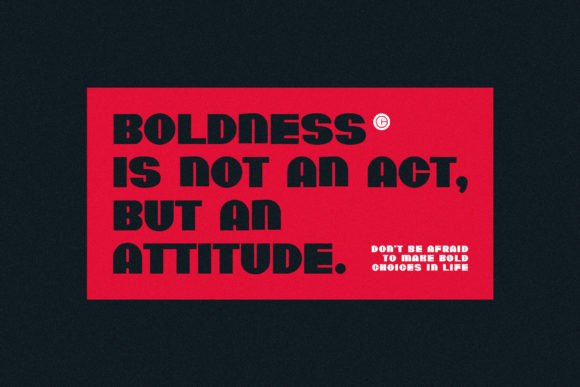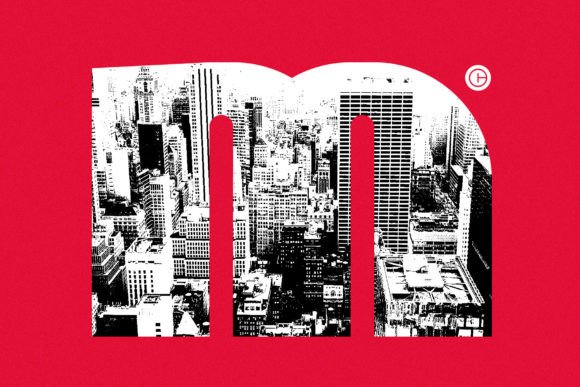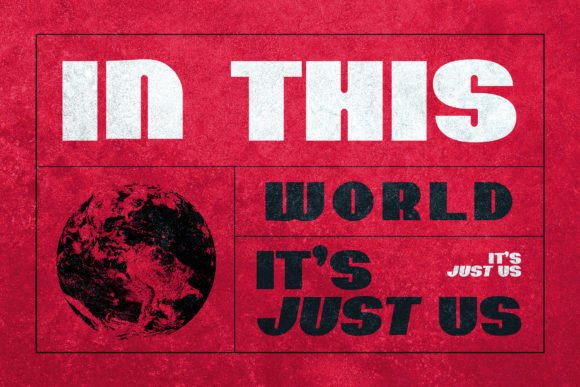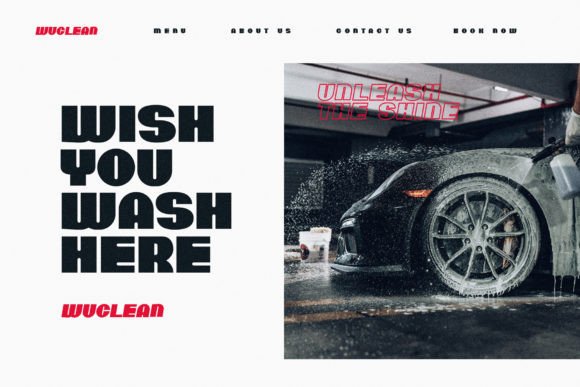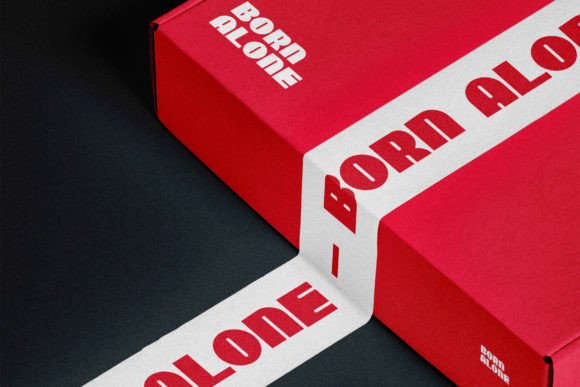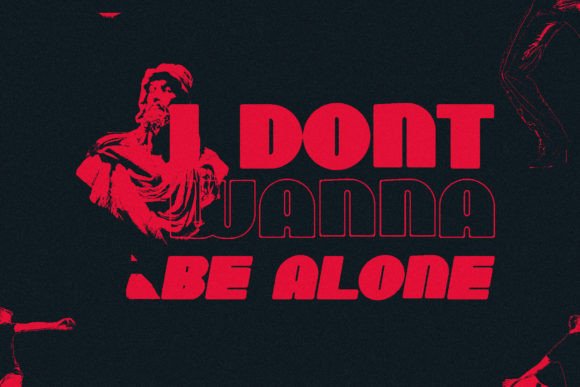
The Birth of a New Era in Typography
It’s that moment when a blank canvas stares back at you, waiting for your creative spark to ignite. The blank page, the empty screen, the waiting silence – it’s where the magic happens. For designers, this is the moment when the possibilities are endless, and the only limit is their imagination. But what happens when that spark is fueled by a unique blend of inspiration, precision, and elegance? Enter the Kirom Font, a symphony of shapes and proportions that will revolutionize the way you think about typography.
The Kirom Font is more than just a typeface – it’s a versatile tool designed to elevate any graphic design project. From brochures to video titles, and from logos to magazine layouts, this font has got you covered. With its subtle contours and precise proportions, it’s the perfect companion for designers who crave minimalism and elegance without compromising on style.
Kirom Font Key Features
- Unique Characteristics: Kirom Font features a unique, modern design with intricate details and subtle texture, making it suitable for a wide range of applications.
Designer Review: Kirom Font
As a designer, I was excited to dive into Kirom Font and see what it had to offer. ✨ One of the things that immediately stood out to me was its modern and sleek aesthetic, making it perfect for contemporary designs. The font’s clean lines and simple shapes give it a timeless feel that will complement a wide range of projects.
Another aspect I appreciated about Kirom Font was its versatility. ✨ It comes in a variety of weights and styles, allowing designers to choose the perfect fit for their needs. Whether you’re looking for a bold statement font or a subtle, understated option, Kirom Font has got you covered.
However, there are a few limitations to consider: ⚠️ For one, the font may not be as suitable for complex, multi-line texts, as some of the letters can appear quite similar. Additionally, the font’s design may not be as distinctive or memorable as some other fonts on the market.
- Modern and sleek aesthetic
- Multiple weights and styles available
- Perfect for contemporary designs
- May not be suitable for complex, multi-line texts
- Design may not be as distinctive or memorable
Overall, I would say that Kirom Font is a solid choice for designers looking for a clean and modern font. While it may have its limitations, it’s a great option for a wide range of projects and can add a touch of sophistication to any design.
The Kirom Font is ideal for use in:
- Graphic design projects
- Web design projects
- Print materials, such as business cards and brochures